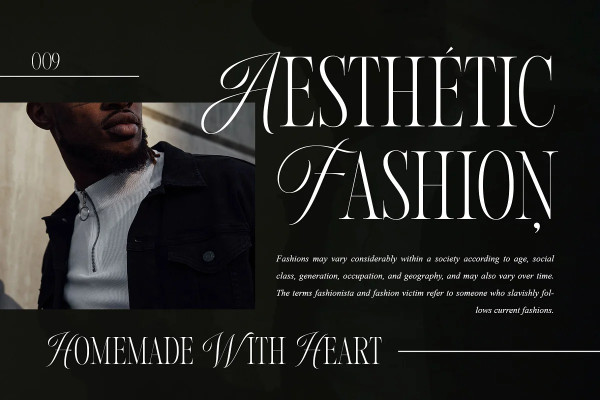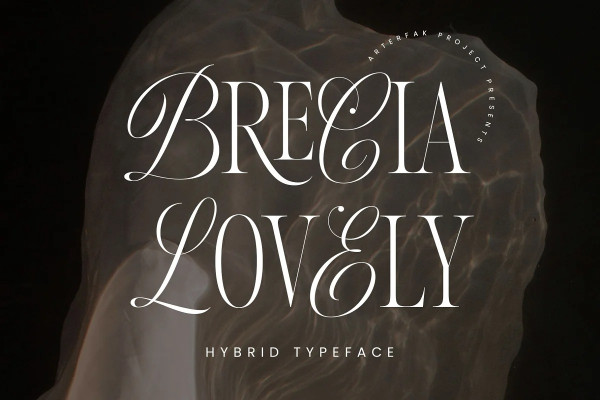
Brecia Lovely Font
Brecia Lovely Font, a hybrid font that combines script font (as uppercase) and slim serif (as lowercase). It features beautiful ligatures and special characters that provide a dynamic, elegant, and luxurious impression.
Inspired by fashion magazines and modern typography, Brecia Lovely offers elegance that you can use in your designs, such as posters, flyers, stories, magazines, blogs, editorials, titles, displays, and more. It is a classy font that you can combine with 50+ ligatures and 60+ alternates.